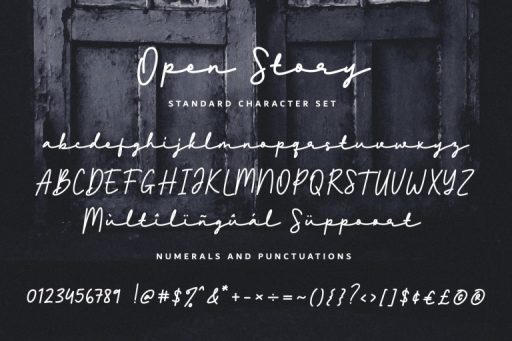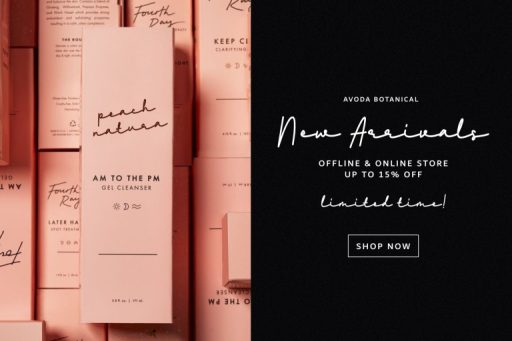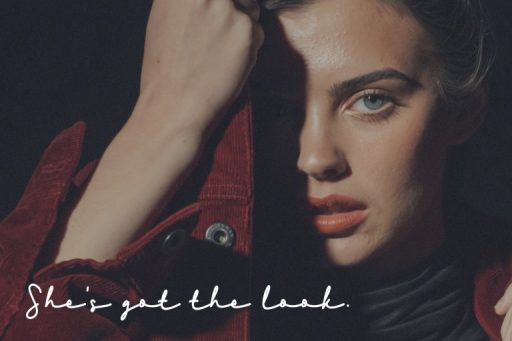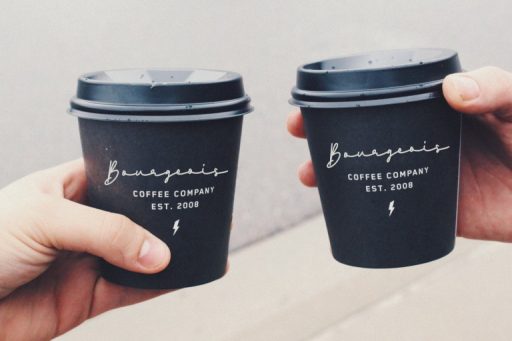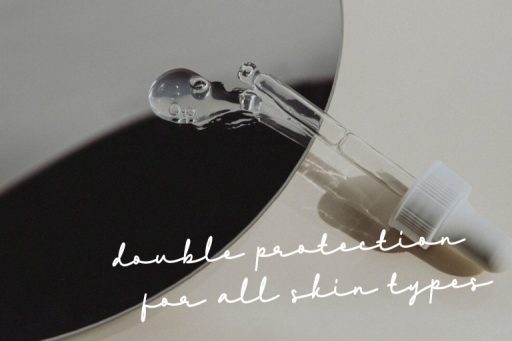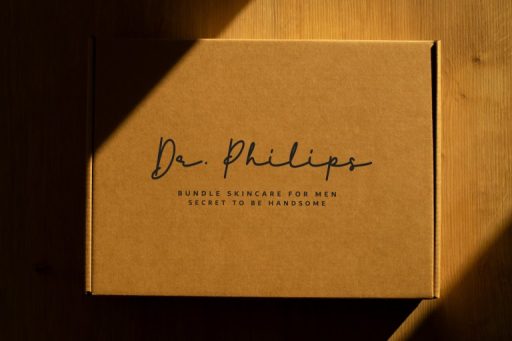
Open Story Font
Open Story – Signature Business Font
Open Story is a script cute font with a long tail that make this font looks elegant, natural, stylish, and perfect for branding design, packaging, quotes, logo, website, t-shirt, crafting, and many more!
Features :
• Multilingual Support